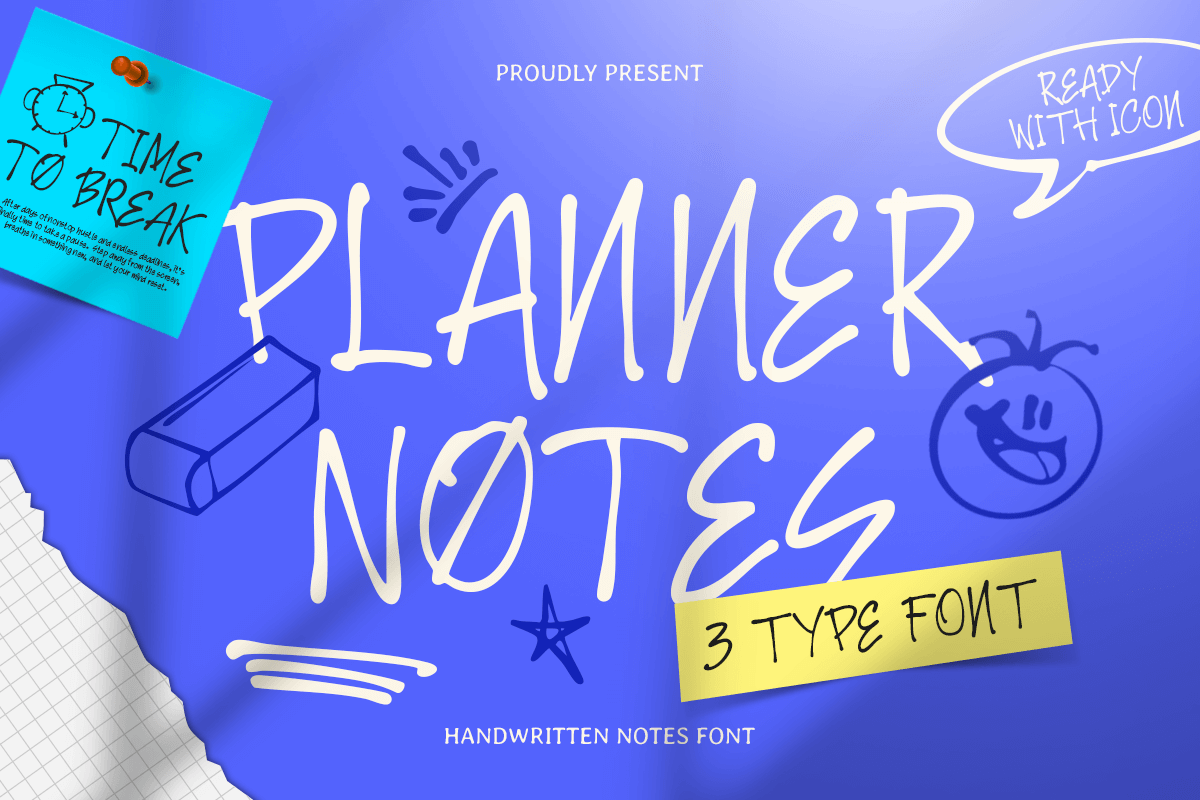
Planner Notes
-Handwritten Marker Font
Planner Notes - Handwritten Marker Font
PLANNER NOTES is a handwritten marker font designed to bring personality, warmth, and creativity to your designs. Inspired by natural handwriting styles, this font perfectly complements planners, journals, notebooks, and digital stationery with its relaxed and friendly character.
Ideal for printable planners, digital stickers, social media templates, packaging, and educational designs, PLANNER NOTES captures the charm of real ink markers on paper. Its slightly irregular strokes give every project an authentic, handmade feel that’s both casual and expressive.
Whether you’re designing a bullet journal layout, a motivational quote, or branding for stationery products, PLANNER NOTES adds a cozy, relatable tone that resonates with modern creatives.
PLANNER NOTES – Handwritten Marker Font Features
• Authentic handwritten marker style with natural flow
• Available with 3 Font Style to make you Creative and Bonus Icons
• Perfect for planners, journals, stickers, and casual designs
• Ideal for printables, social media, and stationery branding
• Friendly, legible, and easy-to-pair with sans or script fonts
• OpenType features for extra flexibility
Add personality and creativity to your journaling projects with PLANNER NOTES – the ultimate handwritten marker font for planners, stationery, and modern handwriting design. ✏️✨